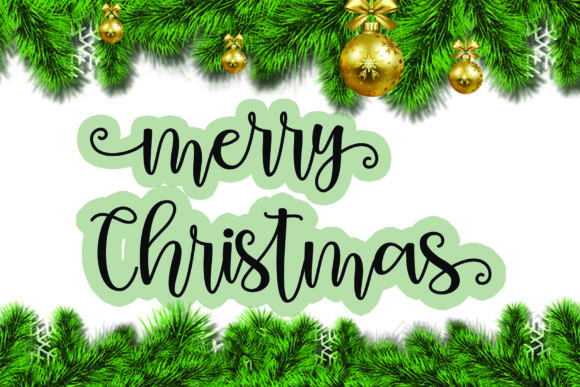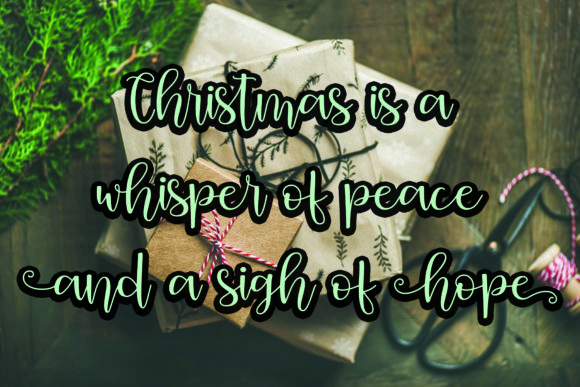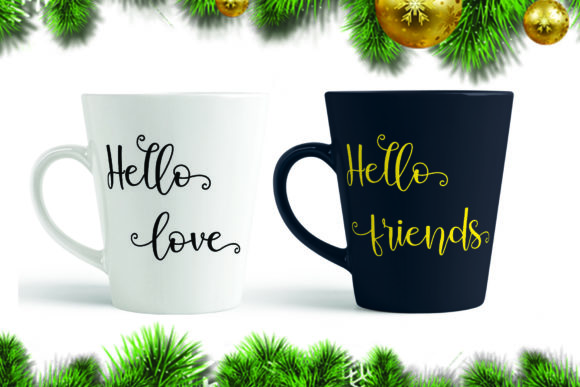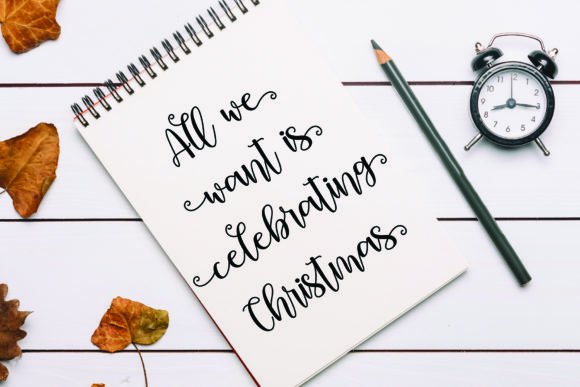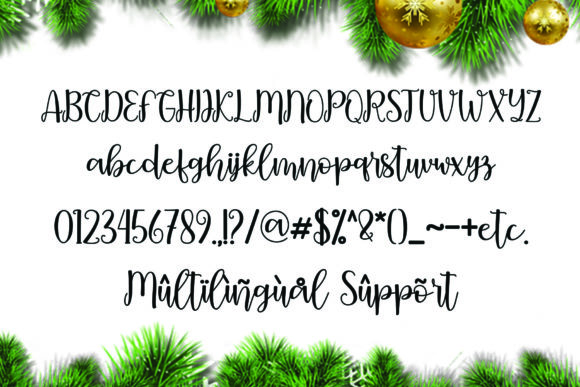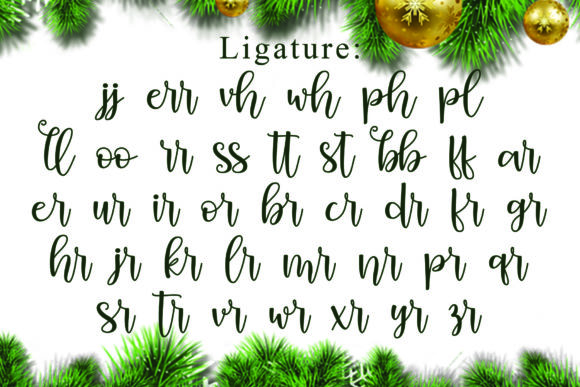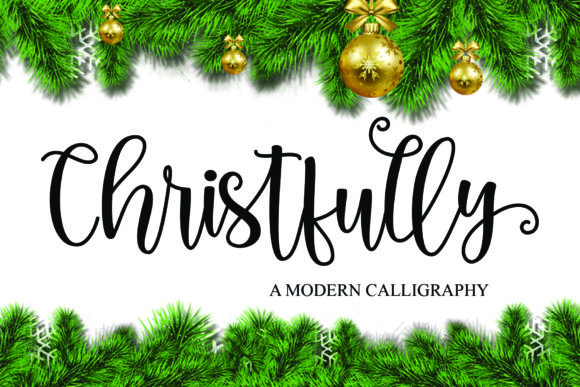
Discover the Elegance of Christfully Font: A Lovely Script Font for Your Creative Projects
Are you a designer or crafter looking for a font that exudes elegance and class? Look no further than Christfully Font, a beautiful and delicate script font that’s perfect for a variety of creative projects. In this article, we’ll take a closer look at Christfully Font, its features, and how you can use it to elevate your designs.
What is Christfully Font?
Christfully Font is a lovely and delicate script font that is designed to add a touch of elegance and sophistication to your designs. This font is perfect for a variety of projects, including wedding invitations, branding, packaging, and more. Its classic and timeless design makes it a versatile font that can be used in a range of contexts.
Features of Christfully Font
One of the standout features of Christfully Font is its PUA (Private Use Area) encoding. This means that you can access all glyphs and swashes with ease, giving you greater flexibility and creative control over your designs. With Christfully Font, you can add flourishes and embellishments to your text, making it truly unique and eye-catching.
Another feature of Christfully Font is its delicate and refined design. The font’s slender lines and curves create a sense of elegance and sophistication, making it perfect for designs that require a touch of luxury and refinement.
Benefits of Using Christfully Font
So why choose Christfully Font for your designs? Here are just a few benefits of using this beautiful script font:
- Elegance and sophistication: Christfully Font adds a touch of elegance and sophistication to your designs, making it perfect for high-end branding, wedding invitations, and more.
- Flexibility: With its PUA encoding, Christfully Font gives you the flexibility to access all glyphs and swashes, allowing you to create unique and customized designs.
- Timeless design: Christfully Font’s classic design ensures that it will remain relevant and stylish for years to come, making it a great investment for designers and crafters.
How to Use Christfully Font in Your Designs
Christfully Font is easy to use and can be incorporated into a range of design projects. Here are a few ideas to get you started:
- Wedding invitations: Christfully Font is perfect for wedding invitations, adding a touch of elegance and sophistication to your designs.
- Branding and packaging: Use Christfully Font to create luxurious and high-end branding and packaging for your clients or business.
- Stationery and greeting cards: Christfully Font is great for creating beautiful stationery and greeting cards that are sure to impress.
Tips for Getting the Most Out of Christfully Font
Here are a few tips for getting the most out of Christfully Font:
- Experiment with swashes and glyphs: With Christfully Font’s PUA encoding, you can access a range of swashes and glyphs to add flourishes and embellishments to your text.
- Pair with other fonts: Christfully Font pairs well with other fonts, so don’t be afraid to experiment with different combinations to create a unique look.
- Use in combination with images: Christfully Font looks great in combination with images, so consider using it to add text to your designs.
Christfully Font is a beautiful and elegant script font that’s perfect for designers and crafters looking to add a touch of sophistication and luxury to their designs. With its PUA encoding and delicate design, Christfully Font is a versatile font that can be used in a range of contexts. Whether you’re creating wedding invitations, branding, or packaging, Christfully Font is a great choice. So why not give it a try and see how it can elevate your designs?